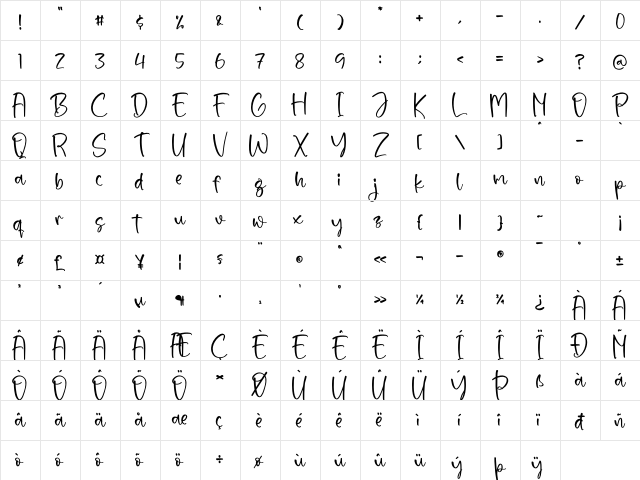
Santtaneck Regular Free Font
Santtaneck Regular
Foundry: Integritype Studio
Designer: Nanang Jamaludin
Design Context for Santtaneck
Santtaneck is a composed and adaptable typeface that performs quietly and consistently across a wide range of design contexts.